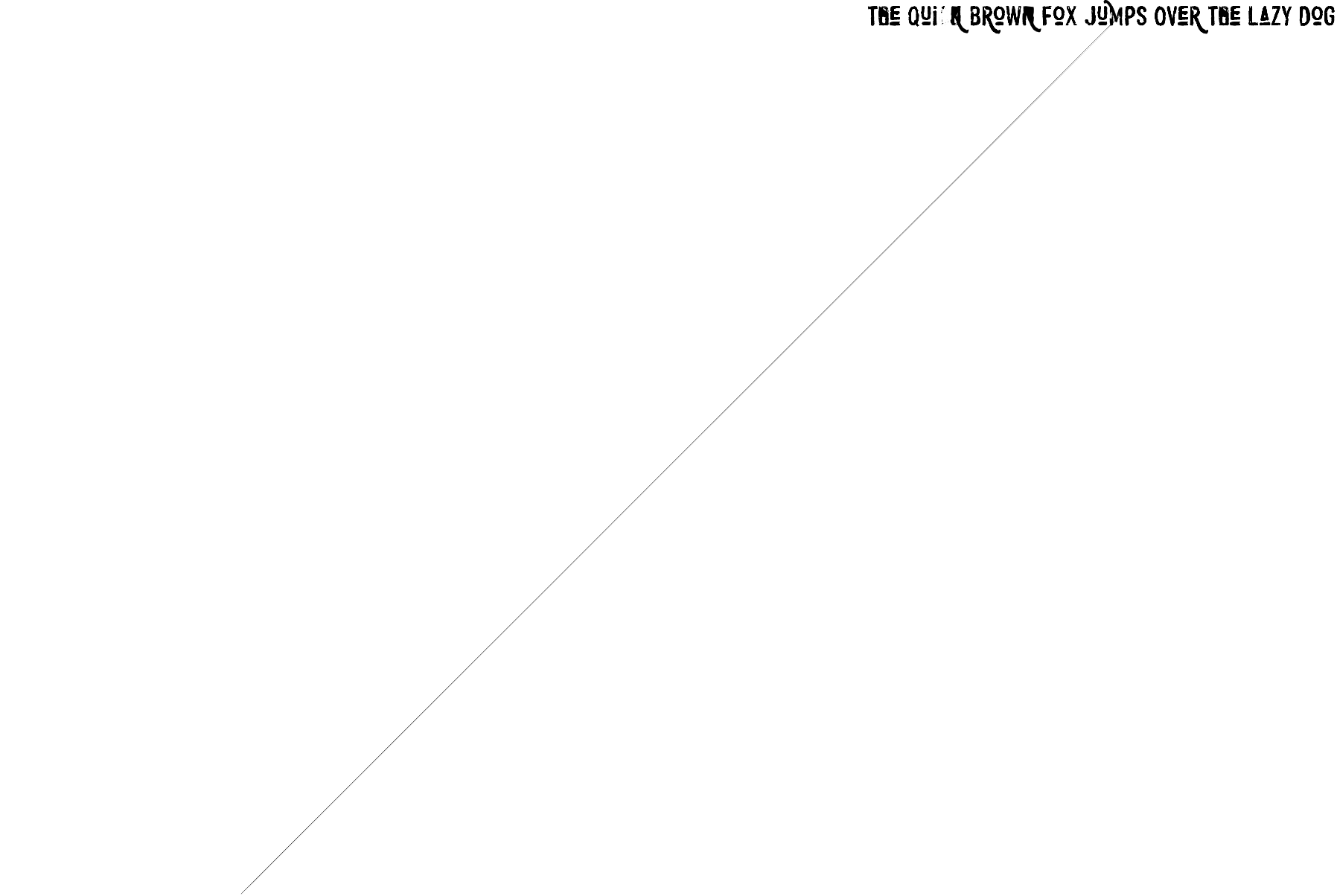
Cherions SVG Sans is handmade font that contains the newest font format, SVG, with vector format. You can use these fonts for various purposes such as making realistic hand lettering, for promotions, or other purposes that will make your design more real as handmade. This font also contain fabulous ligatures that will make your design stand out! This font also support multi language.